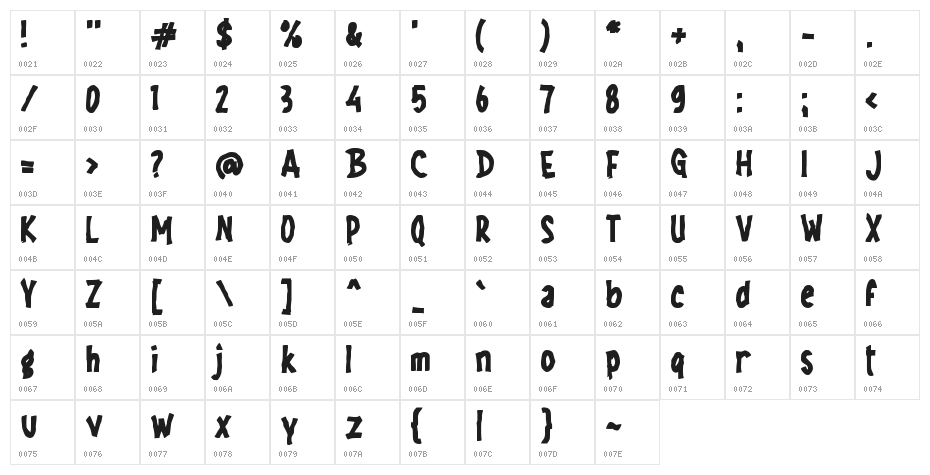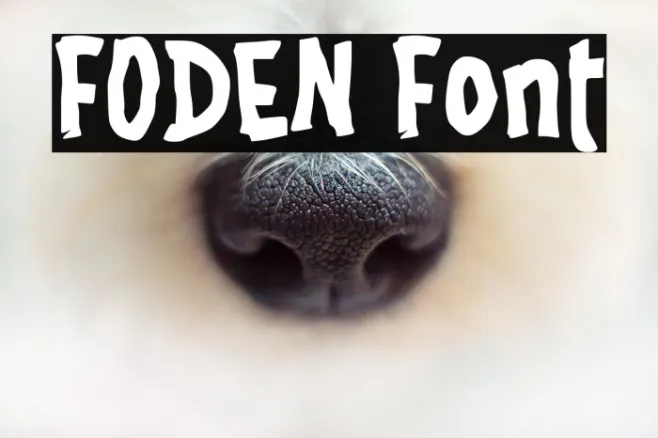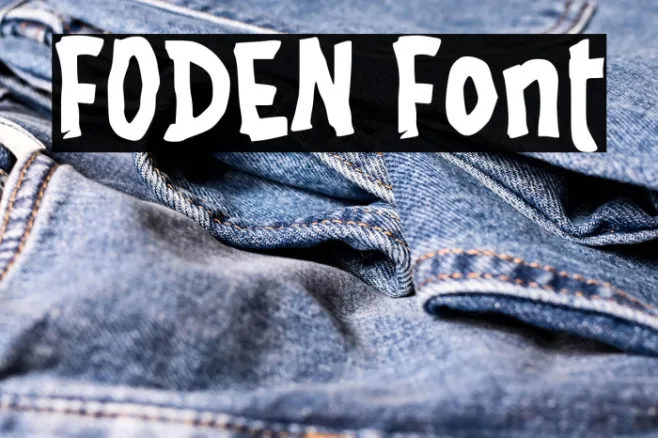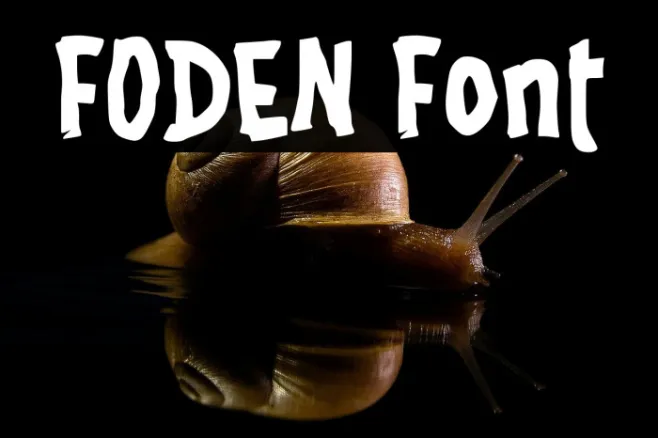
FODEN Font
FODEN Description
This font features a bold and expressive style with irregular, hand-drawn characteristics. The letters have a playful and dynamic appearance, with varying stroke widths that create a lively and energetic feel. The uppercase and lowercase letters maintain a consistent style, while the numbers and special characters complement the overall design. The font's unique and artistic qualities make it stand out, offering a sense of creativity and individuality. Its boldness and irregularity suggest a sense of movement and spontaneity, making it suitable for projects that require a touch of personality and flair.
| Proposed Projects | Ideal for posters, album covers, children's books, and creative branding. |